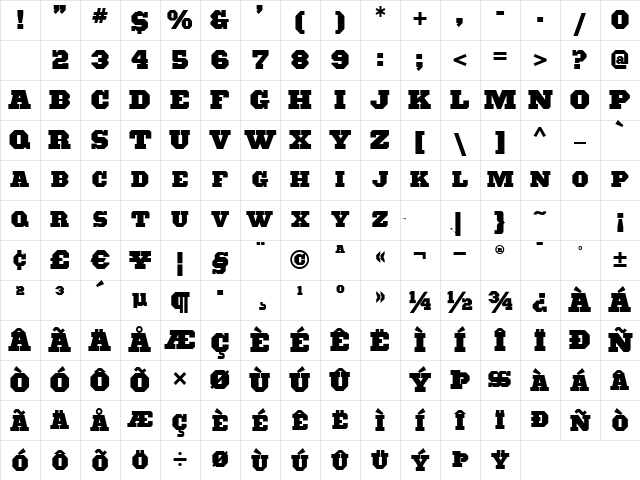
Ouachita Way Wbw Regular
Design Context for Ouachita Way Wbw
Ouachita Way Wbw is a composed and adaptable typeface that performs quietly and consistently across a wide range of design contexts.
Pro Tip: Use Ouachita Way Wbw in both headline and body roles to test its range before committing to a single application.